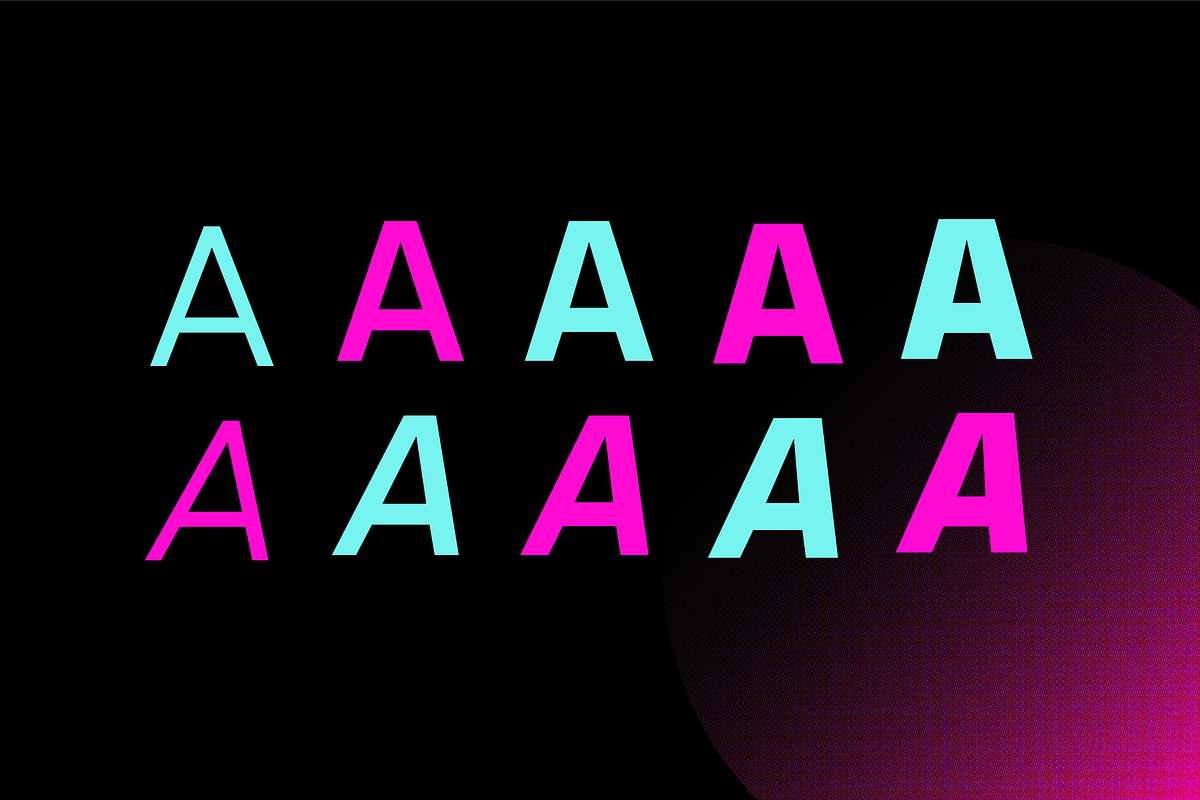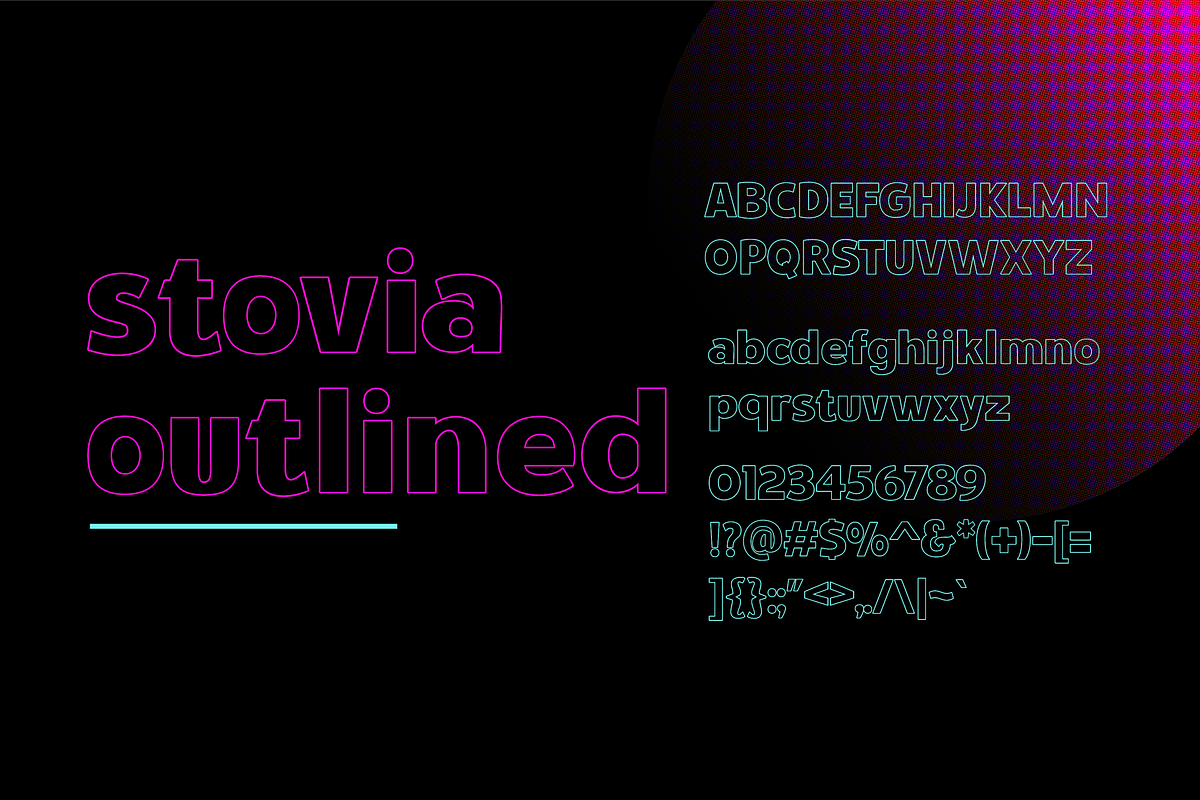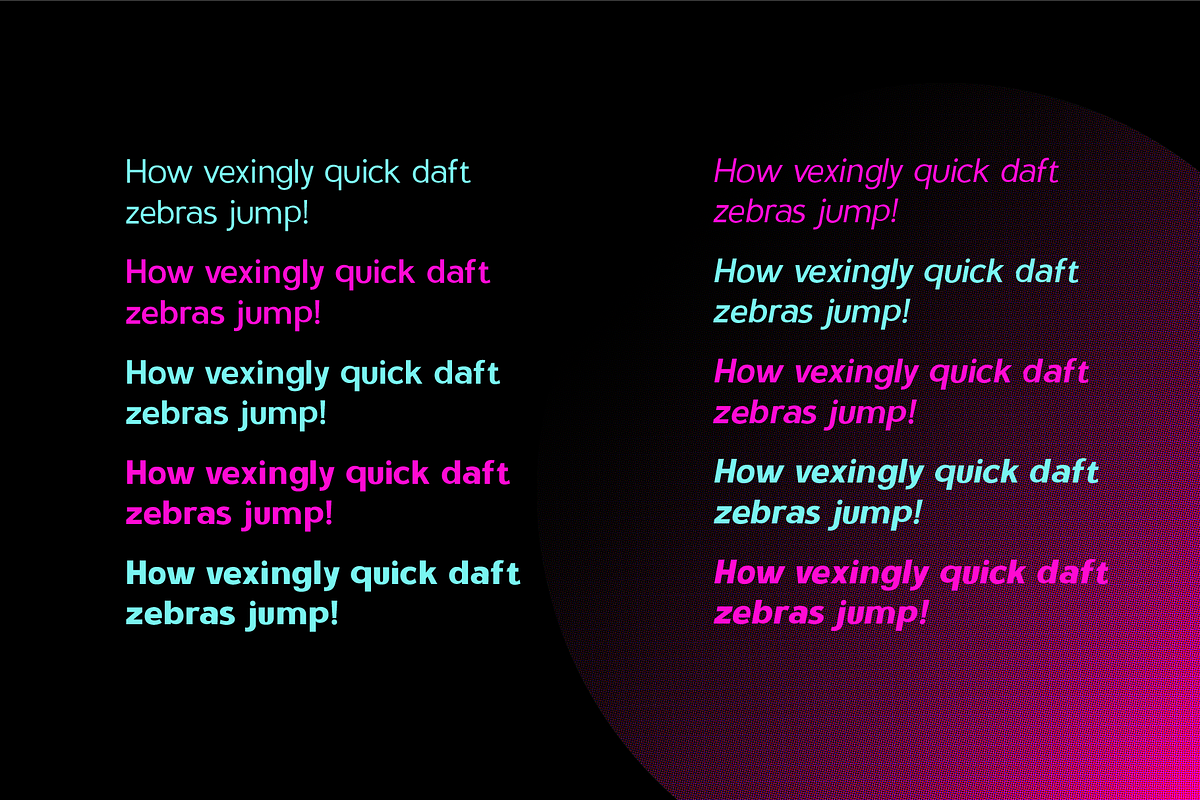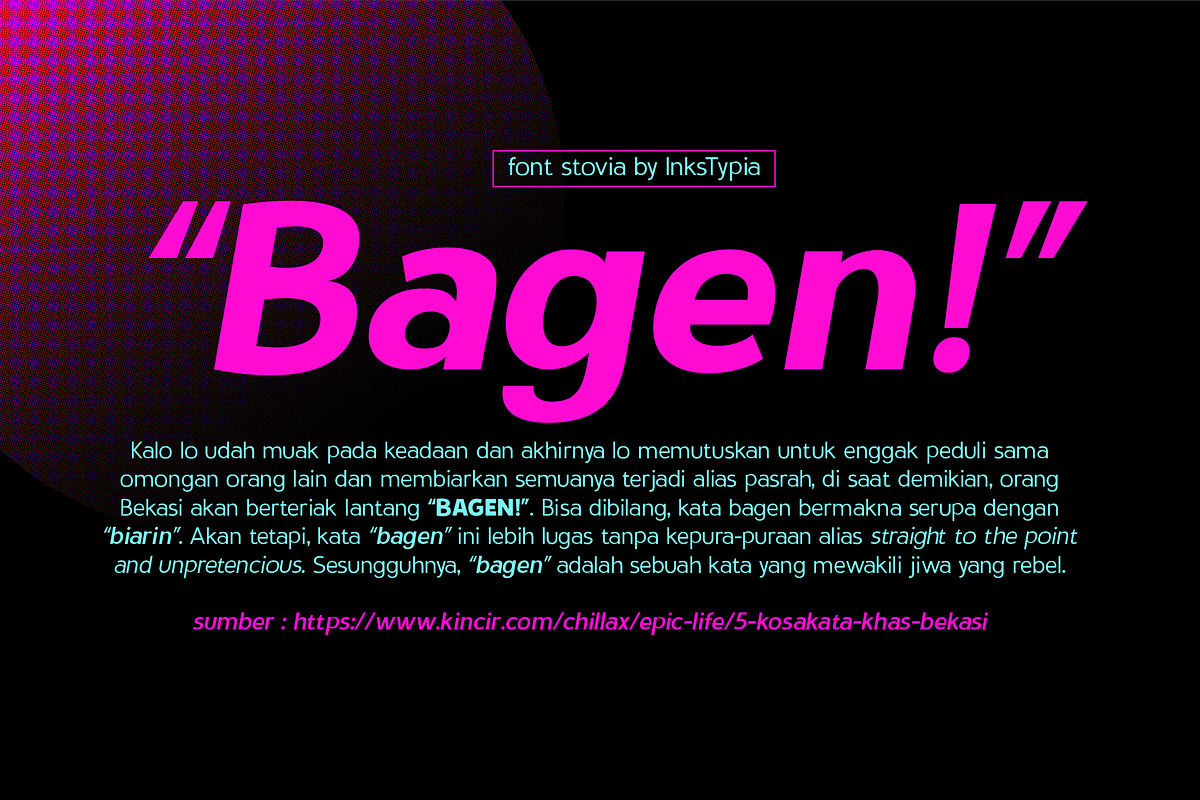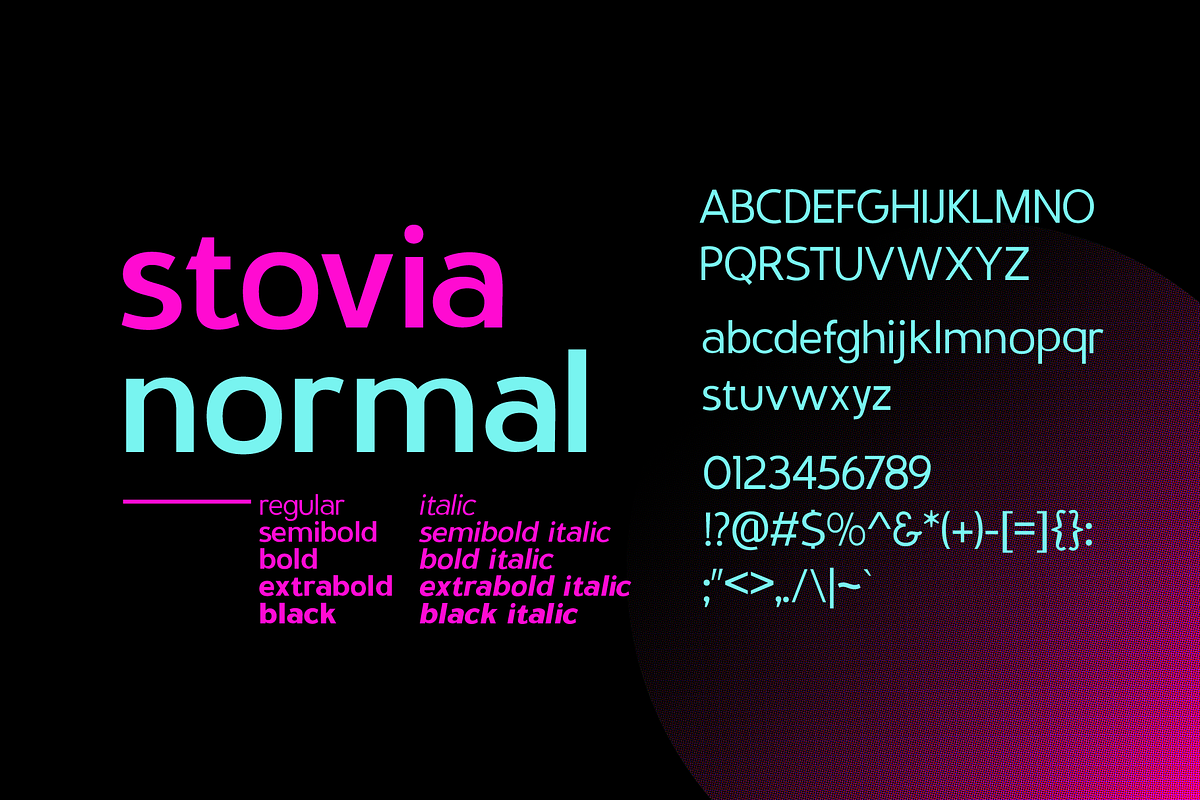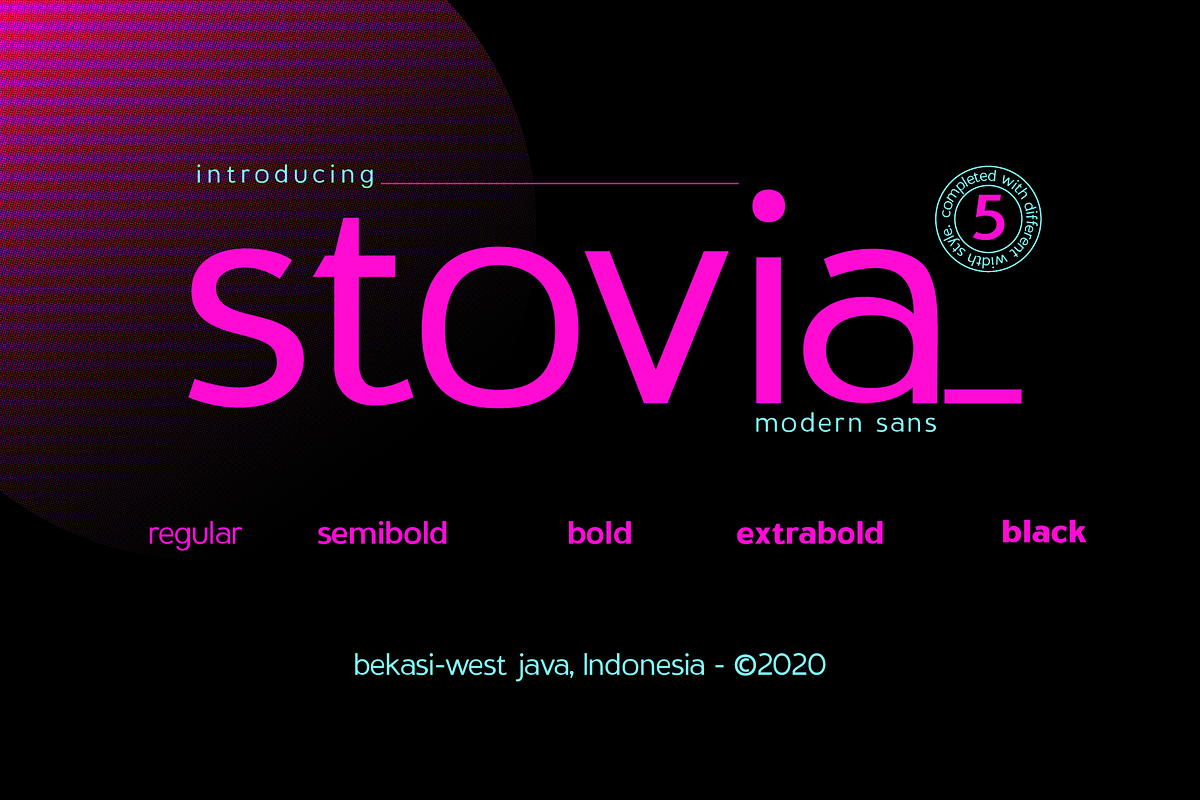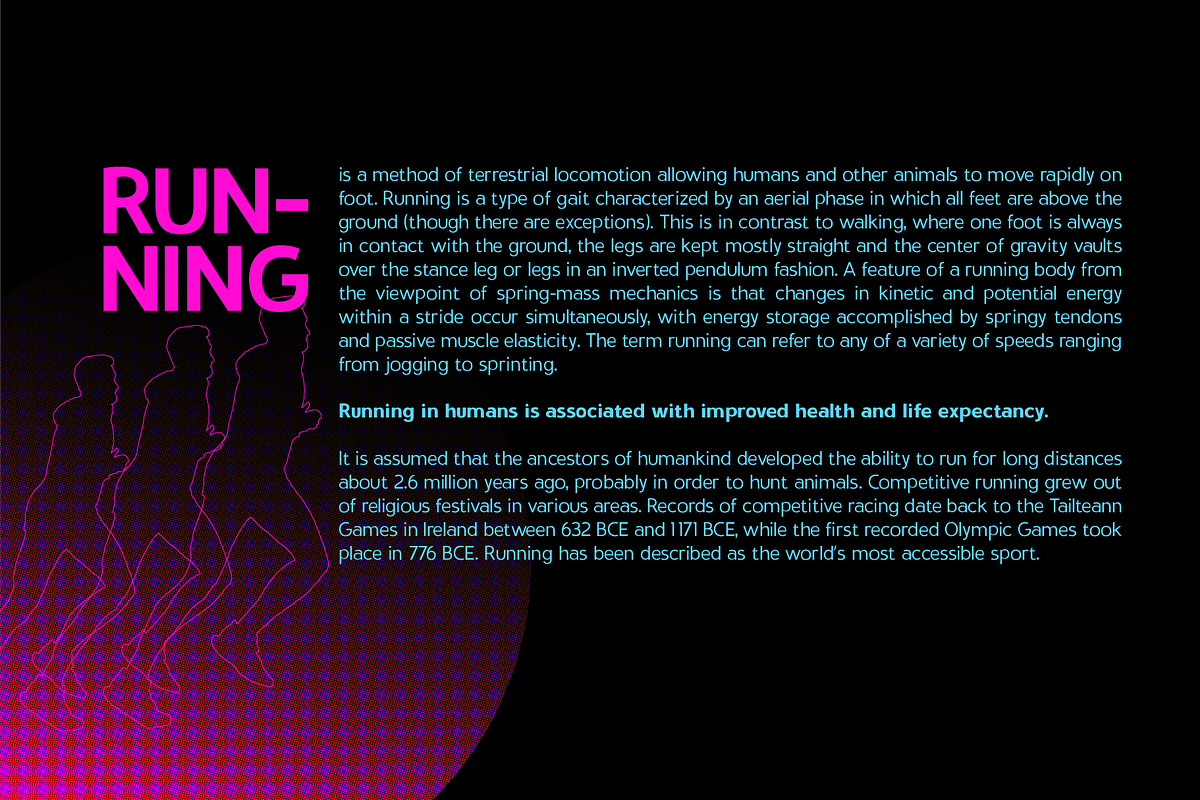
Stovia
Stovia is a typeface with a modern sans serif style, has a clean, modern and elegant character. Suitable for text fonts, headings, logotypes, or even as display fonts. You can use Stovia for posters, invitations, labels, ui / ux designs, and so on.